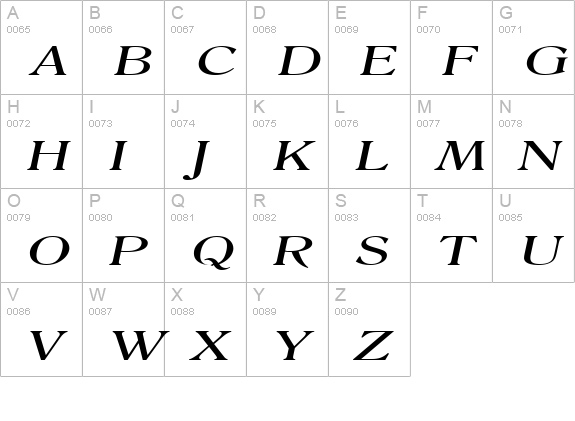
Roomy Extended Italic Font Details
Roomy Extended Italic is a distinctive, extended-width, italic variant in the Roomy typeface family \xE2\x80\x94 well suited to design and typography projects.
Roomy Extended Italic font is a sleek and modern typeface that exudes sophistication and elegance. Its elongated characters and stylish italics add a touch of flair to any design project. Perfect for headings, titles, and branding materials, this font is sure to make a statement. And the best part? Roomy Extended Italic font is available for free download at FontsMarket.com. Take advantage of this incredible offer and enhance your designs with this stunning typeface today!